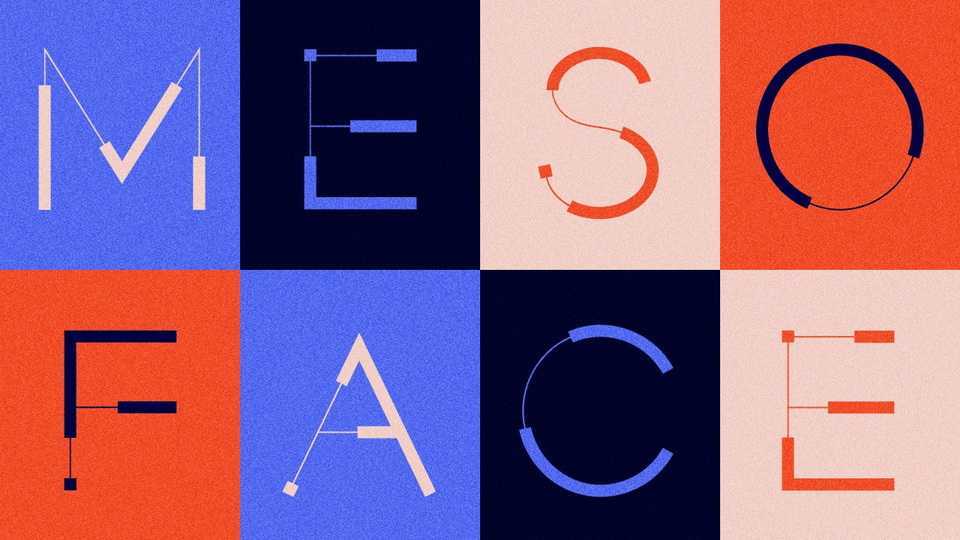
Download Mesoface font, a geometric display typeface with shifting letter strokes. Use Mesoface font on any text editing program for unique headings and subtitles.
Designer: Hannah Cormier